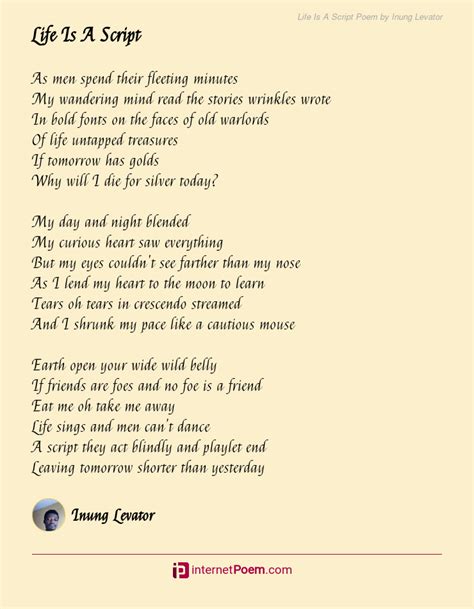
Good Fonts For Poems
Good Fonts For Poems - Web times new roman: Web one popular choice is a classic serif font like times new roman or garamond, which can add a touch of. Web popular fonts for poetry writing. Discover a world of captivating typography for your creative projects. Esteban is a typeface intended to be used in texts, specially literature and poetry. Explore poetry fonts at myfonts. When it comes to choosing a font for a poem, there is no single “right” answer. This classic font adds a touch of elegance to your verses, making them feel timeless and refined.
Discover a world of captivating typography for your creative projects. When it comes to choosing a font for a poem, there is no single “right” answer. Esteban is a typeface intended to be used in texts, specially literature and poetry. This classic font adds a touch of elegance to your verses, making them feel timeless and refined. Explore poetry fonts at myfonts. Web one popular choice is a classic serif font like times new roman or garamond, which can add a touch of. Web times new roman: Web popular fonts for poetry writing.
Esteban is a typeface intended to be used in texts, specially literature and poetry. Web times new roman: Web one popular choice is a classic serif font like times new roman or garamond, which can add a touch of. This classic font adds a touch of elegance to your verses, making them feel timeless and refined. When it comes to choosing a font for a poem, there is no single “right” answer. Discover a world of captivating typography for your creative projects. Explore poetry fonts at myfonts. Web popular fonts for poetry writing.
In this article, I've listed the best free cursive fonts in Canva. Some
Explore poetry fonts at myfonts. Discover a world of captivating typography for your creative projects. When it comes to choosing a font for a poem, there is no single “right” answer. Esteban is a typeface intended to be used in texts, specially literature and poetry. Web one popular choice is a classic serif font like times new roman or garamond,.
Poem Script
Web popular fonts for poetry writing. Esteban is a typeface intended to be used in texts, specially literature and poetry. Web times new roman: Discover a world of captivating typography for your creative projects. Explore poetry fonts at myfonts.
Best Fonts For Poetry Books The Best Fonts For Ebook Readers
Esteban is a typeface intended to be used in texts, specially literature and poetry. When it comes to choosing a font for a poem, there is no single “right” answer. Web times new roman: This classic font adds a touch of elegance to your verses, making them feel timeless and refined. Discover a world of captivating typography for your creative.
MyFonts Typefaces for poetry
Web one popular choice is a classic serif font like times new roman or garamond, which can add a touch of. When it comes to choosing a font for a poem, there is no single “right” answer. Explore poetry fonts at myfonts. Discover a world of captivating typography for your creative projects. Esteban is a typeface intended to be used.
MyFonts Typefaces for poetry
Explore poetry fonts at myfonts. When it comes to choosing a font for a poem, there is no single “right” answer. Web one popular choice is a classic serif font like times new roman or garamond, which can add a touch of. Esteban is a typeface intended to be used in texts, specially literature and poetry. Web popular fonts for.
MyFonts Typefaces for poetry
Explore poetry fonts at myfonts. Web times new roman: This classic font adds a touch of elegance to your verses, making them feel timeless and refined. Web one popular choice is a classic serif font like times new roman or garamond, which can add a touch of. When it comes to choosing a font for a poem, there is no.
MyFonts Typefaces for poetry
Explore poetry fonts at myfonts. Esteban is a typeface intended to be used in texts, specially literature and poetry. Web popular fonts for poetry writing. This classic font adds a touch of elegance to your verses, making them feel timeless and refined. Web one popular choice is a classic serif font like times new roman or garamond, which can add.
MyFonts Typefaces for poetry
When it comes to choosing a font for a poem, there is no single “right” answer. This classic font adds a touch of elegance to your verses, making them feel timeless and refined. Esteban is a typeface intended to be used in texts, specially literature and poetry. Web one popular choice is a classic serif font like times new roman.
Poems & Pens font by PremiereGraphics FontRiver
When it comes to choosing a font for a poem, there is no single “right” answer. Explore poetry fonts at myfonts. Discover a world of captivating typography for your creative projects. Web one popular choice is a classic serif font like times new roman or garamond, which can add a touch of. Esteban is a typeface intended to be used.
Poem Script Regular
Web popular fonts for poetry writing. Explore poetry fonts at myfonts. Discover a world of captivating typography for your creative projects. Web one popular choice is a classic serif font like times new roman or garamond, which can add a touch of. This classic font adds a touch of elegance to your verses, making them feel timeless and refined.
Web Times New Roman:
Esteban is a typeface intended to be used in texts, specially literature and poetry. This classic font adds a touch of elegance to your verses, making them feel timeless and refined. Web one popular choice is a classic serif font like times new roman or garamond, which can add a touch of. Discover a world of captivating typography for your creative projects.
Explore Poetry Fonts At Myfonts.
When it comes to choosing a font for a poem, there is no single “right” answer. Web popular fonts for poetry writing.